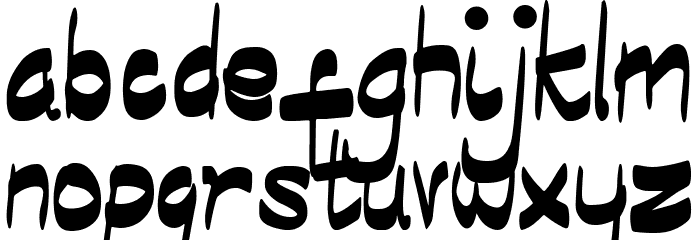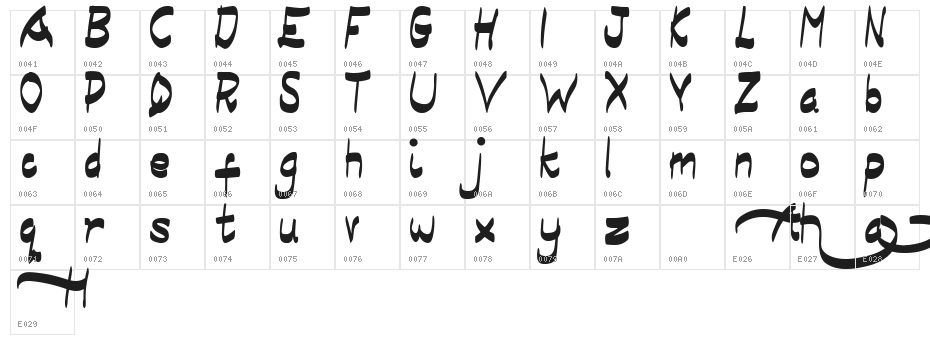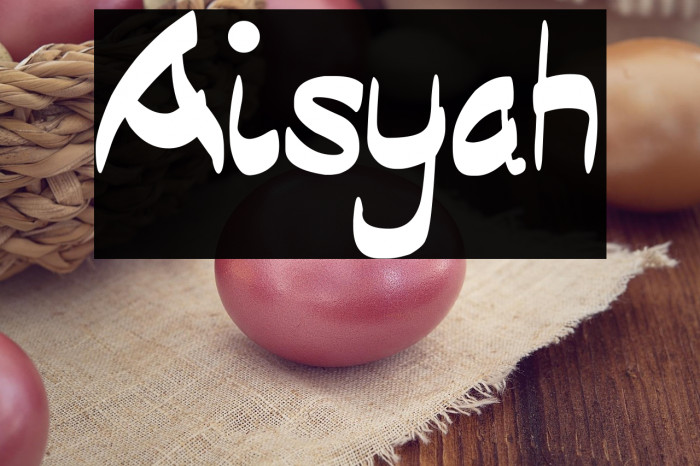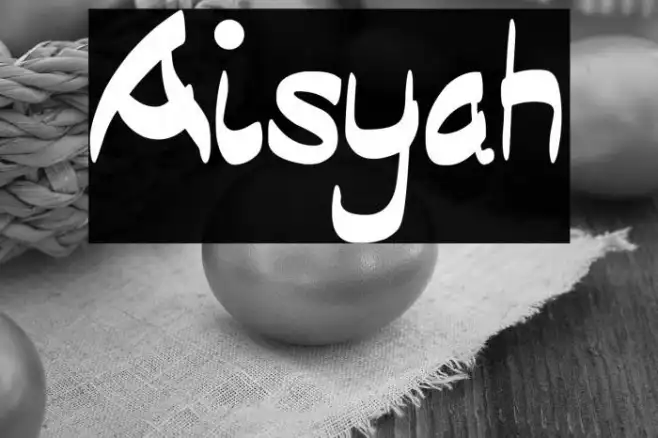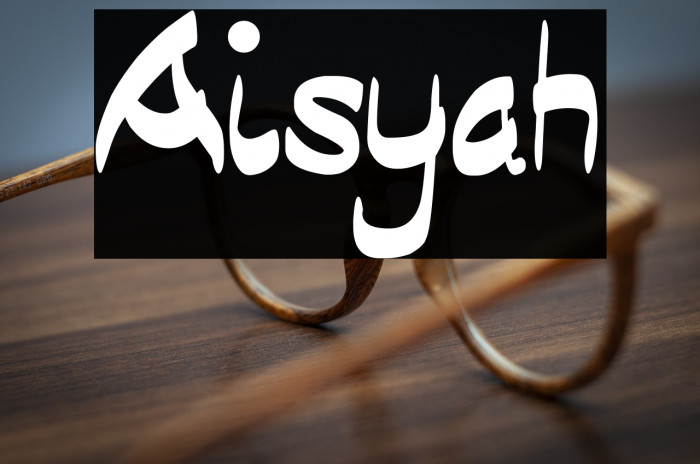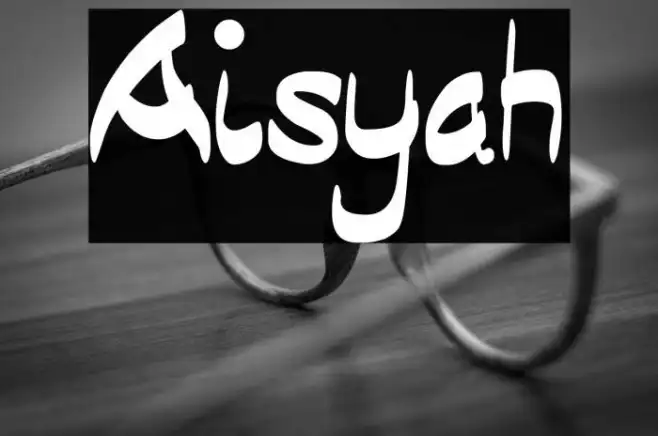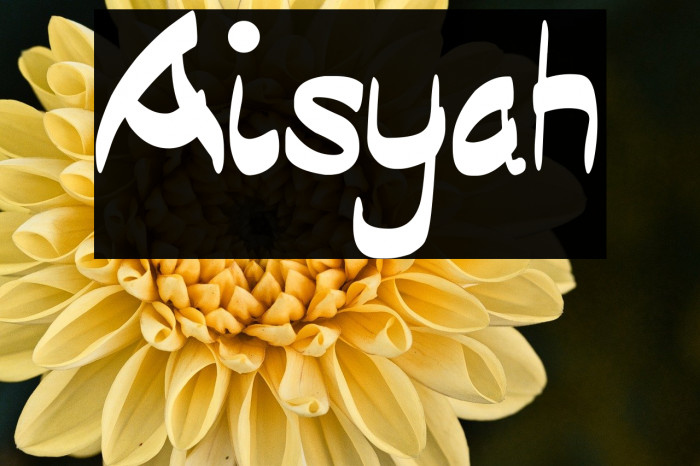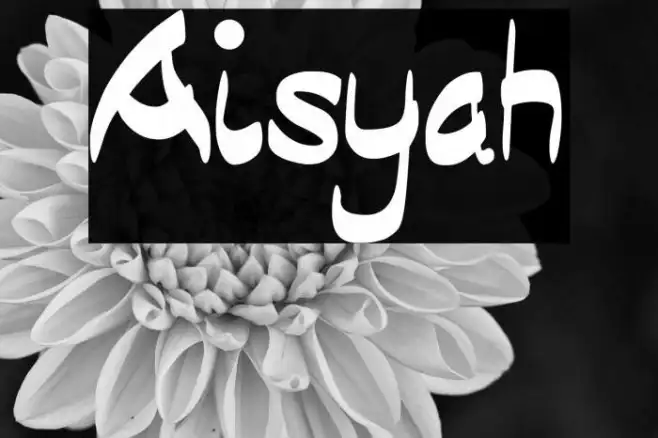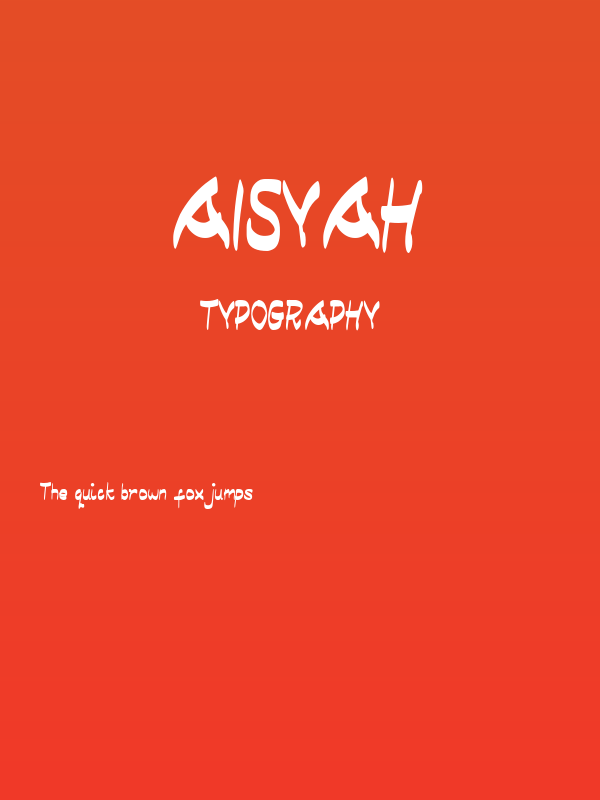
Aisyah Font
This font features a dynamic and expressive style with a handwritten appearance. The characters are bold and slightly irregular, giving a sense of movement and energy. The uppercase letters are tall and slightly narrow, while the lowercase letters maintain a consistent flow with rounded edges. The strokes vary in thickness, adding a playful contrast that enhances its visual appeal. This font is ideal for creative projects that require a personal touch, such as invitations, posters, or branding materials. Its unique style captures attention and conveys a sense of individuality.
A bold, handwritten font with dynamic strokes and playful contrast.
- Proposed Projects: Ideal for invitations, posters, branding, and creative projects needing a personal touch.